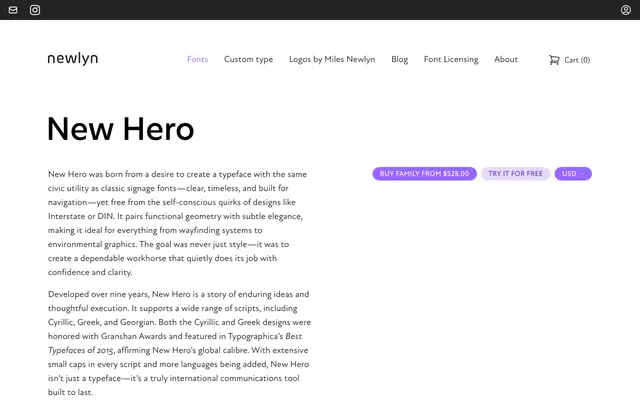
New Hero Italic
Newlyn · 2015
A geometric sans designed for wayfinding and civic communication, covering Latin, Cyrillic, Greek and Georgian across ten weights.
Developed over nine years, New Hero pairs clean functional geometry with subtle elegance, characterised by vertical terminals on the C, S and their lowercase counterparts, and a slightly narrow m. The family spans ten weights from Hairline to Super, includes small caps across all supported scripts, and carries Granshan Awards for its Cyrillic and Greek designs. An optional Accessibility Set modifies key characters to meet W3C compliance guidelines, making it practical for broadcast, UI and public signage work.
New Hero is a geometric sans-serif built around functional geometry with clean vertical terminals and a slightly narrow m, placing it clearly in the geometric sans tradition. Its civic wayfinding application and avoidance of stylistic quirks align it with rational, utility-driven geometric designs.